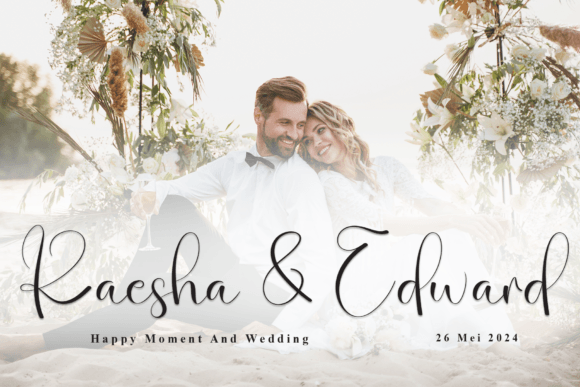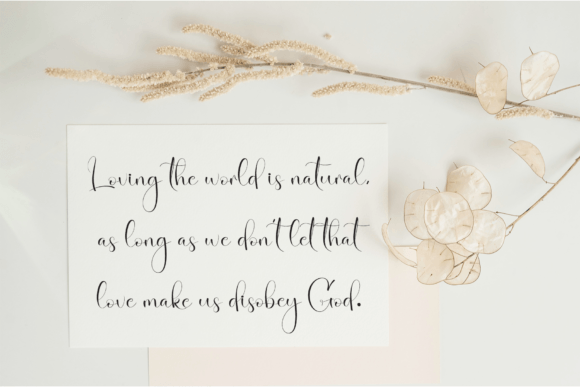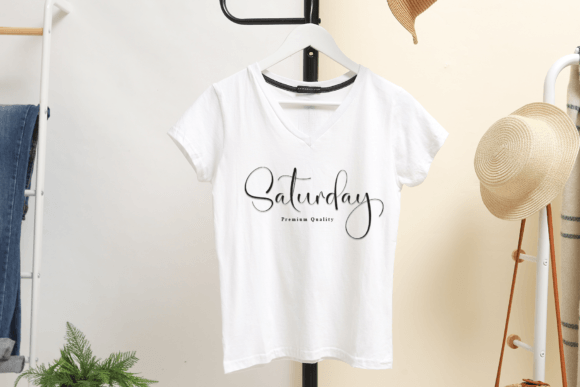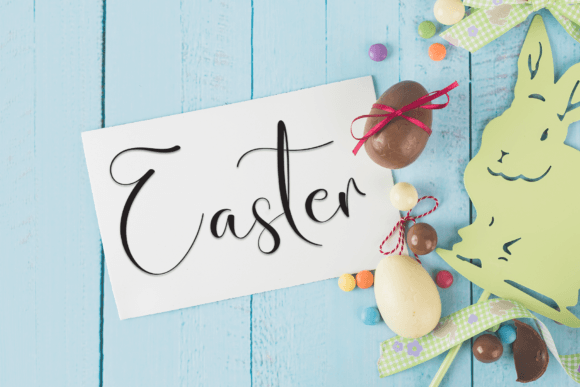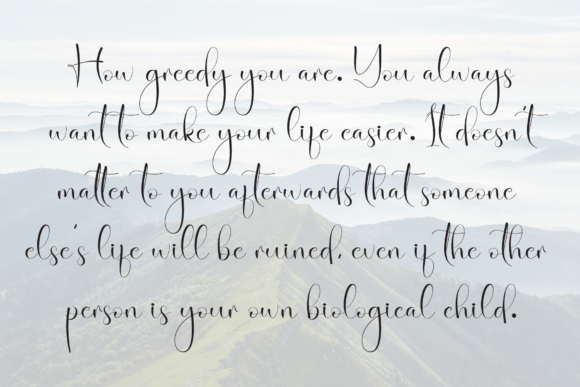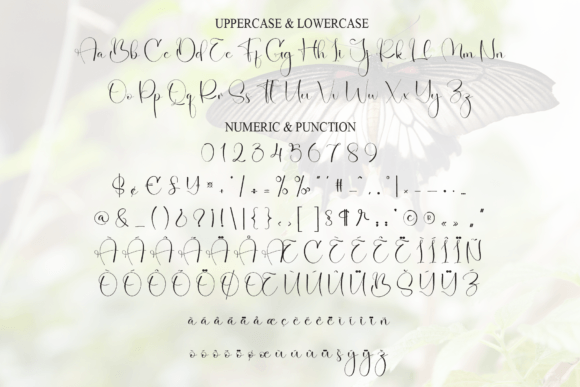
Introducing Butterfly Font: Elevate Your Designs with Elegance and Charm
Are you looking for a font that exudes sophistication, elegance, and a personal touch? Look no further than Butterfly Font, a stylish handwritten font that is sure to take your designs to the next level. With its fluid, graceful strokes and refined character, Butterfly is perfect for designers and crafters seeking to add a touch of luxury and charm to their projects.
The Beauty of Butterfly Font
Butterfly Font is a masterpiece of typographic design, boasting a unique blend of elegance and playfulness. Its handwritten strokes are fluid and natural, giving the font a personal and approachable feel. The characters are carefully crafted to convey a sense of sophistication and refinement, making it ideal for high-end branding, elegant invitations, and fashionable editorial designs.
Key Features of Butterfly Font
- Fluid and Graceful Strokes: Butterfly Font features smooth, flowing strokes that give it a dynamic and elegant feel.
- Sophisticated Character: Each character is carefully designed to convey a sense of refinement and luxury.
- Handwritten with Love: The font’s handwritten nature gives it a personal touch, making it perfect for designs that require a human feel.
- Versatile and Adaptable: Butterfly Font can be used for a wide range of design projects, from branding and advertising to editorial design and crafting.
Perfect for Chic Branding and Elegant Invitations
Butterfly Font is an excellent choice for designers looking to create chic and sophisticated branding materials. Its elegant character makes it perfect for:
- Logos and Wordmarks: Create a lasting impression with a logo that exudes refinement and luxury.
- Business Cards and Stationery: Add a touch of elegance to your business cards, letterheads, and other stationery materials.
- Elegant Invitations: Make your invitations stand out with a font that is both stylish and sophisticated.
Fashionable Editorial Designs
Butterfly Font is also perfect for fashionable editorial designs, such as:
- Fashion Magazines and Blogs: Add a touch of glamour to your fashion editorials with a font that is both stylish and elegant.
- Lifestyle and Travel Publications: Use Butterfly Font to add a sense of sophistication and refinement to your publications.
Tips for Using Butterfly Font
To get the most out of Butterfly Font, here are a few tips to keep in mind:
- Pair with Neutral Colors: Pair Butterfly Font with neutral colors like black, white, and gray to let the font’s elegance shine.
- Experiment with Font Sizes: Experiment with different font sizes to create visual hierarchy and add depth to your designs.
- Add Decorative Elements: Add decorative elements like illustrations, graphics, and textures to enhance the font’s elegance and charm.
In conclusion, Butterfly Font is a stylish handwritten font that is sure to elevate your designs with its elegance, charm, and sophistication. With its fluid strokes, refined character, and versatile nature, it is perfect for designers and crafters seeking to add a touch of luxury and refinement to their projects. Whether you’re working on branding, editorial design, or crafting, Butterfly Font is an excellent choice.